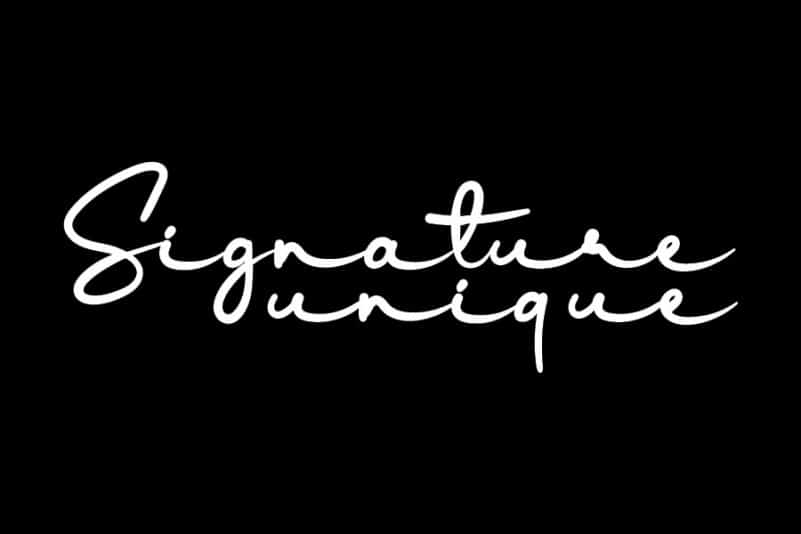
Hallimuna Handwritten Font
Hallimuna Handwritten Font is a flowing and incredibly relaxed handwritten font. It looks stunning on wedding invitations, thank you cards, quotes, greeting cards, logos, business cards and every other design which needs a handwritten touch.
The latest style letters are perfect for wall displays, wedding invitations, social media post logos, advertisements, product packaging, product designs, labels, photography, watermarks, invitations, stationery, and any project that requires taste handwriting.